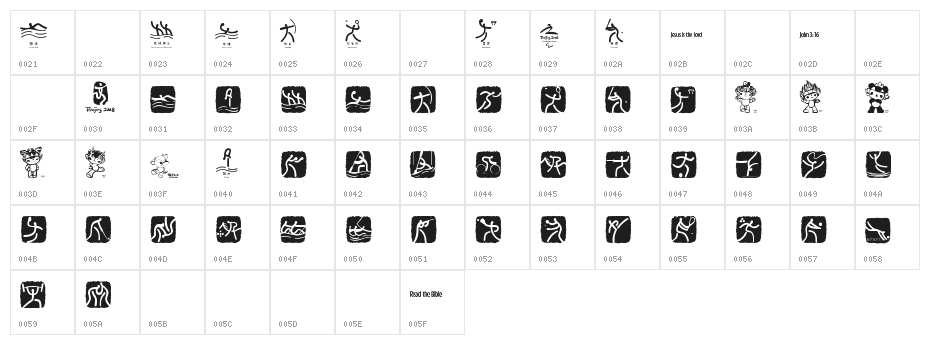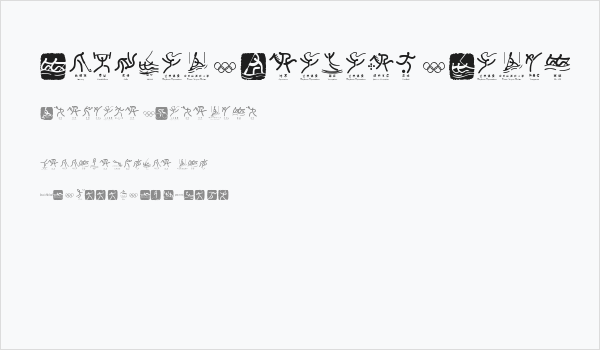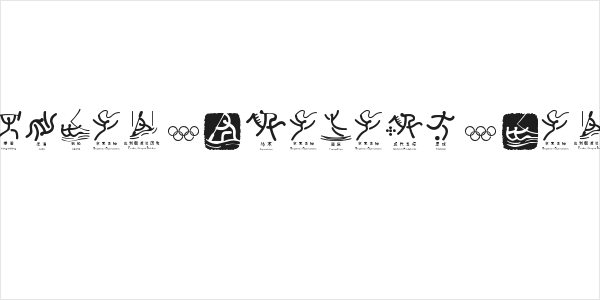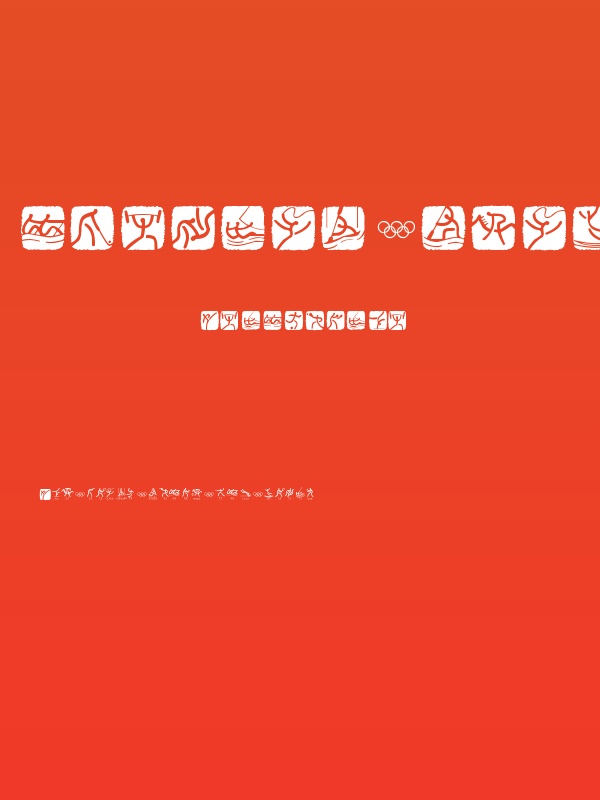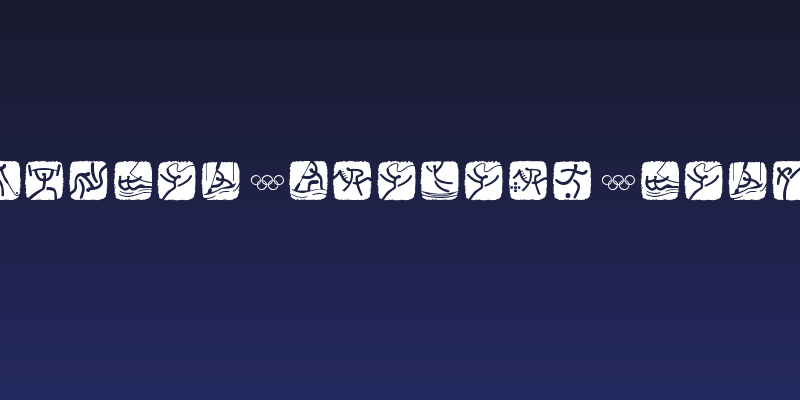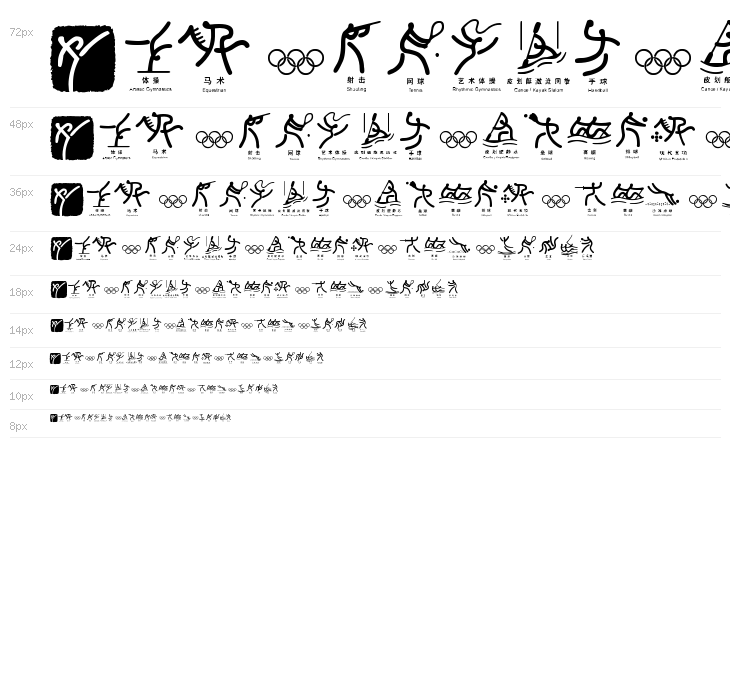
Olympic Beijing Picto Font
Olympic Beijing Picto Description
This set of pictograms represents various sports and activities associated with the Olympics, specifically designed for the Beijing 2008 Games. Each icon is enclosed in a square with a bold, black background, and features a stylized, white line drawing that captures the essence of the sport it represents. The design is modern and dynamic, with fluid lines that convey movement and energy. The icons are easily recognizable and convey a sense of tradition and cultural significance, reflecting the host city's heritage. The overall style is both artistic and functional, making it suitable for a wide range of applications.
| Use Case | Logos, Signage, Promotional Materials |
| Proposed Projects | These icons can be used for event signage, promotional materials, educational content, and merchandise related to sports and the Olympics. |